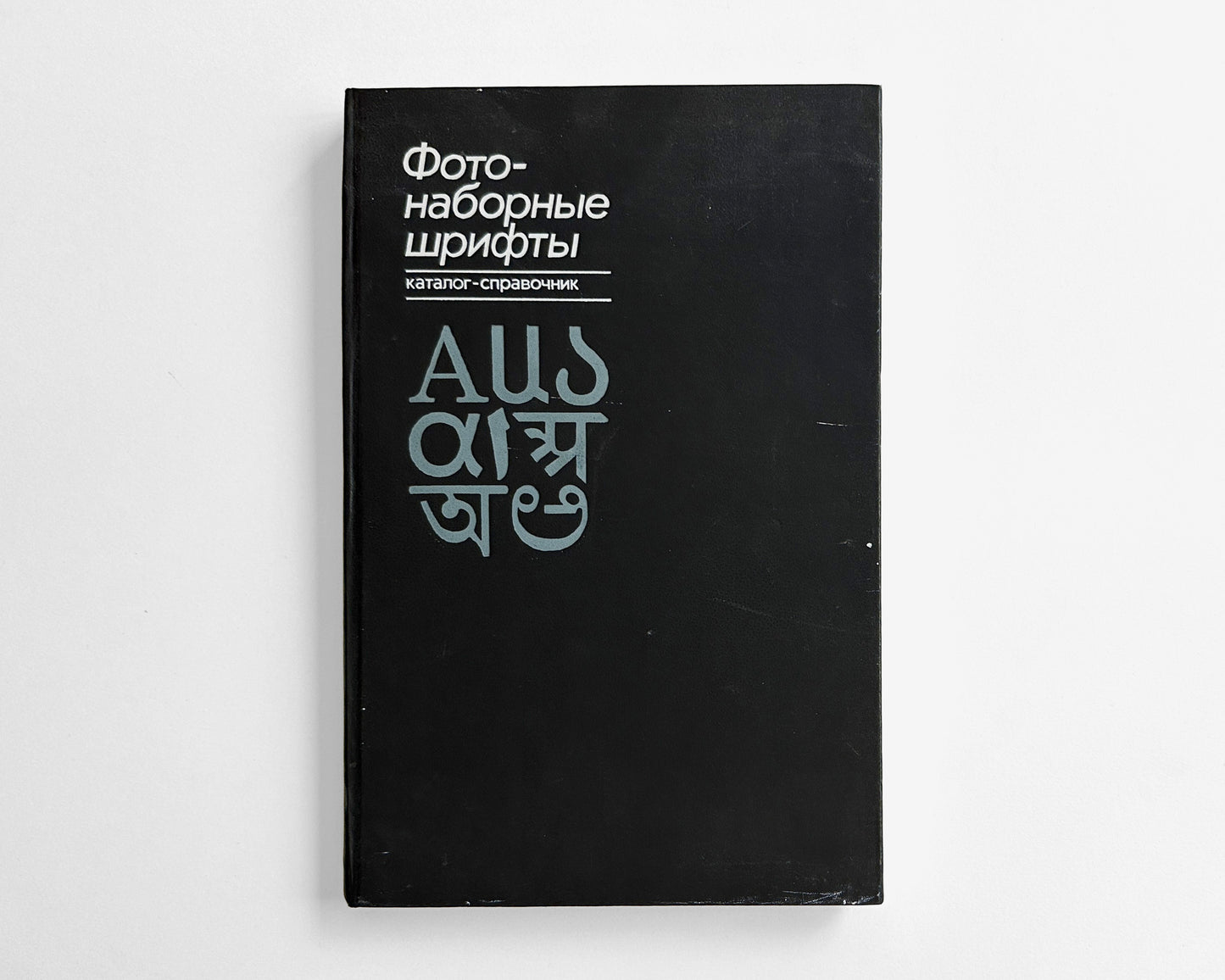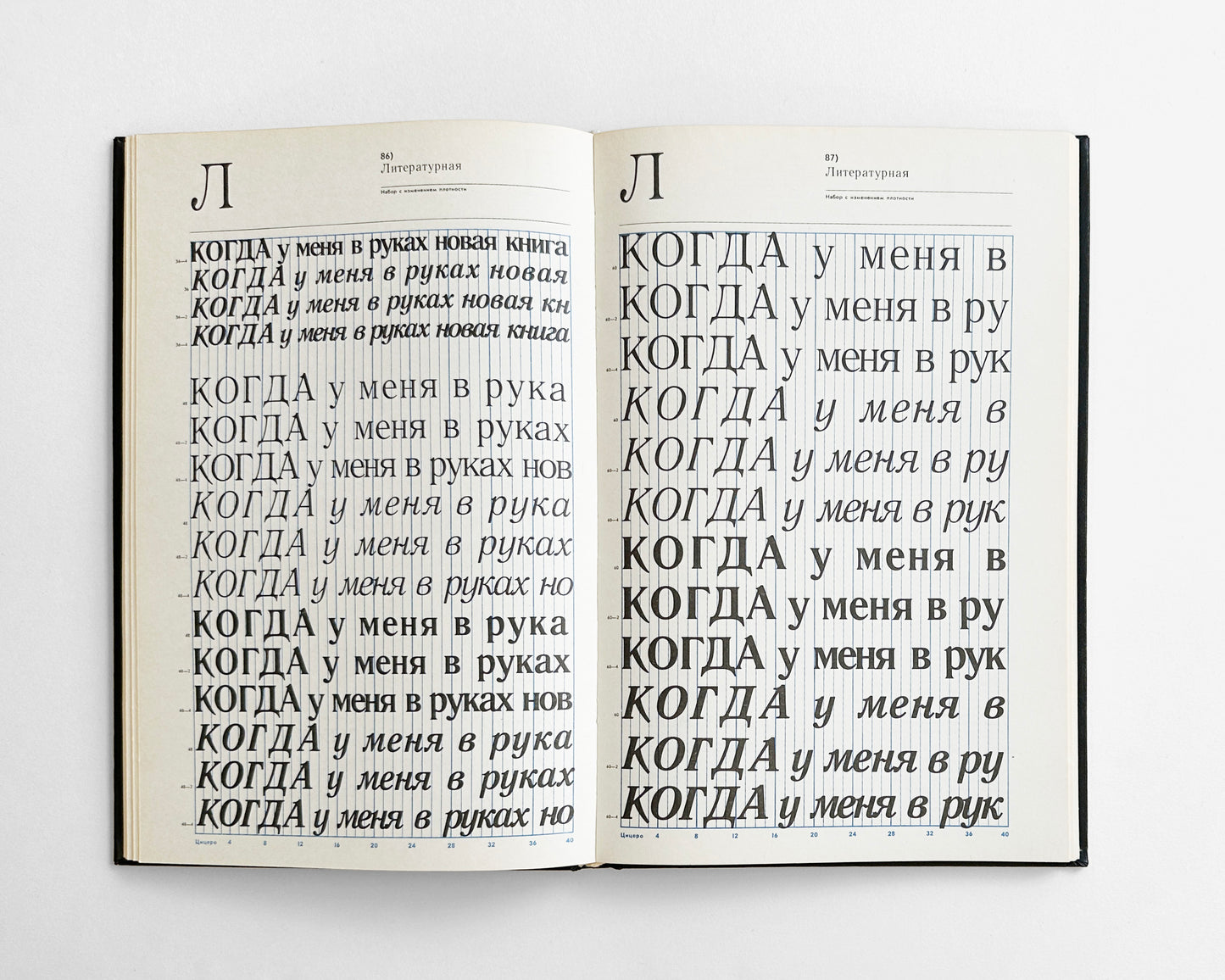
Phototypesetting Fonts; Directory Catalog, 1983 (Russian)
Phototypesetting Fonts; Directory Catalog compiled by Georgy Ivanovich Kozubov (1939–2018) and Vladimir Venediktovich Yefimov (1949–2012), 1983. Book Publishing House [Kniga, Книга], Moscow, Russia. 9 x 13.5, pp. 176. Russian Text. Printed in Moscow. Layout and design by V. Yefimov.
With an Introduction by the authors and Font Index followed by approx. (30) typefaces each with various sizes, styles and classifications. Heavily illustrated with more than (150) character set samples: Russian (Latin) alphabets, special alphabets (Armenian, Georgian, Arabic, Hindi, Bengali, Kannada, Cyrillic and others), complex characters, rules and decorations. Loosely translated from the colophon: “Developed by the type department of the All-Russian Scientific Research Institute of Printing Mechanical Engineering.”
A letter to Volodya Yefimov: “I consider Vladimir Yefimov the central, focal figure in the process of reviving the nearly lost traditions of Russian typography, which commenced in the late 1980s.” — Maxim Zhukov